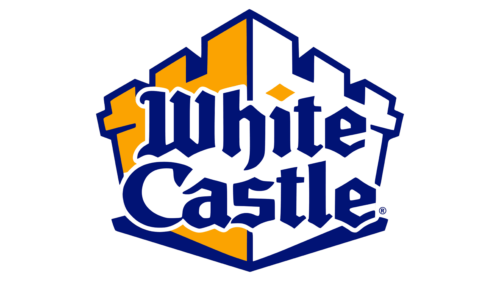
The title of the first fast-food restaurant that started cooking hamburgers belongs to White Castle, opened in Wichita, Kansas, in 1921 by entrepreneur Billy Ingram. White Castle is that famous place where for the first time, back in 1929, burgers became the basis of the menu.
White Castle Logo history
On August 13, 1921, the first White Castle restaurant was founded in Kansas, USA. It was the first fast-food restaurant and later the first large restaurant chain.
The founders of “White Castle” Billy Ingram and Walter Anderson considered their main task to be fighting stereotypes: the interior and even the exterior walls of their establishment were decorated with white tiles (hence the name), and the tables and doors were made of stainless steel whenever possible to create a sense of cleanliness. Moreover, the kitchen was located so that the cooking process was visible to customers.
This approach worked: the restaurant was popular and allowed to start expanding the business. By the end of the 1920s, White Castles was not only in Kansas and neighboring Nebraska but in all major cities in the “Midwest” of the United States.
And it all began with the fact that a cook named Walter Anderson worked in the city of Wichita (Kansas) in a grocery store. Later he opened his first diner in a converted streetcar. After his second and third locations, he was about to open a fourth, but one day he met Billy Ingram, an insurance and real estate professional. History omits the details of this meeting, but what we do know is that it was with it, in 1929, that the story of the White Castle burger restaurant chain began.
The owners of White Castle used some tricks: for example, they hired special people who wore doctors’ uniforms and stood in line for burgers. Thus, they convinced visitors that burgers are so safe and healthy that even doctors can eat them. In general, the work was tremendous, and it did pay off.
In a few years, the famous White Castle square burgers won a place in the hearts of Americans. And in 1933 White Castle began to turn into a huge network.
In the 1980s, White Castle tried to launch a worldwide franchise. Several restaurants were opened in Singapore, Japan, and Malaysia, but eventually, closed. However, a White Castle restaurant is quite successful in China, and Canadians enjoy their burgers in a convenience store format – they can buy frozen burgers from White Castle at almost any store in Canada.
The first White Castle restaurant is still in operation in New York City, and it’s not only a place for a tasty bite to eat but also something of a mecca for burger lovers.
Enjoying a delicious burger isn’t just for the very first White Castle, it’s more for those who came for the history rather than the snack. And for those who are just hungry, White Castle establishments open their doors and menus in almost every state. And there’s already speed and variety there, all in the best tradition of a thriving franchise in a thriving industry.
What is White Castle?
White Castle is the name of the very first fast-food chain in the world. It started to develop even earlier than McDonald‘s. At the very beginning of its development it was more successful, but, alas, due to conflicts among the directors, the company did not get a proper development and now has about 345 restaurants in the United States.
In terms of visual identity, White Castle is not a big fan of experiments and dramatic changes. The logo of the fast food chain is still based on the lettering style from the 1920s, with just small alternations in colors and graphics.
1921 – 1983
White Castle Logo 1921
The original White Castle logo was introduced in 1921 and featured only a stylized lettering set on a plain white background with no graphical additions. It was a dark-blue inscription in a Gothic-style typeface, which perfectly suited the name of the restaurant chain, transmitting the medieval castle spirit.
1983 – 1996
White Castle Logo 1983
The first redesign of the White Castle logo was held only sixty years after the establishment of the brand. The lettering remained the same but was now set in two levels, on a black-and-white rectangular banner. The banner had rounded angles, a thick black frame, and a geometric emblem in its upper part. The emblem was a square White Castle wall on a solid black background.
1996 – 2003
White Castle Logo 1996
In 1996 the White Castle logo had changed its color palette to purple, black, and white, where the graphical elements remained monochromatic, and the lettering turned light-purple. The name of the fast-food chain was now set on an angular castle wall, with the characters going vertically expanded to the middle of the composition. This version of the logo stayed in use by the company for the next seven years.
As for the color palette of the White Castle’s visual identity, it is based on a bright and light combination of blue, yellow, and white, which looks very friendly and welcoming and evokes a sense of freshness and cleanliness, reflecting the original idea of the brand’s founders.